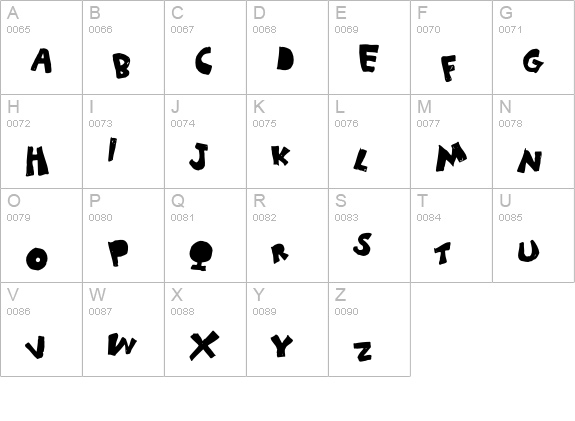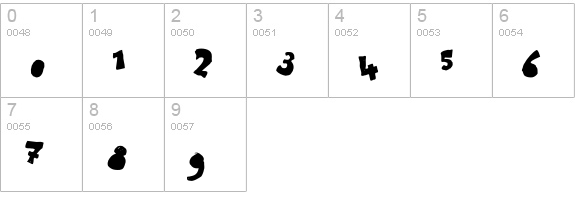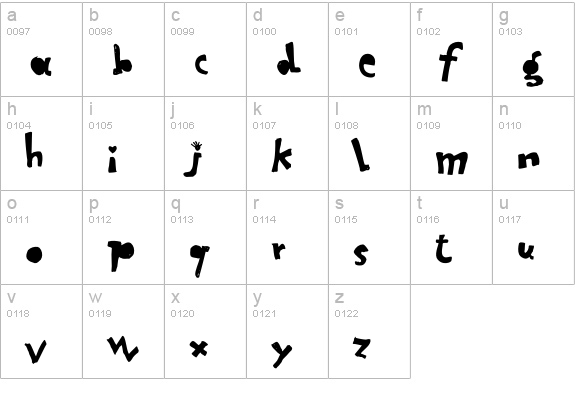
Introducing Letterine-EsagerateBlack, the epitome of boldness and sophistication. This exquisite font exudes a sense of power and elegance, making it the perfect choice for any design project that demands attention and impact. With its exaggerated and intensified weight, Letterine-EsagerateBlack commands the viewer's gaze, leaving a lasting impression that cannot be ignored. Every stroke is meticulously crafted to enhance the overall visual experience, creating a harmonious balance between strength and refinement. The versatility of this typeface is unparalleled, allowing it to effortlessly adapt to various design purposes. Whether it's for branding, editorial layouts, posters, or even display signage, Letterine-EsagerateBlack effortlessly elevates your message to new heights. And the best part? It's absolutely free! This extraordinary font can be freely downloaded at FontsMarket.com, ensuring that everyone can access its striking beauty and unleash their creativity without any limitations. So why wait? Unleash the power of Letterine-EsagerateBlack and make a statement that will captivate and inspire. Download it now and let your designs speak volumes with this incredible font.